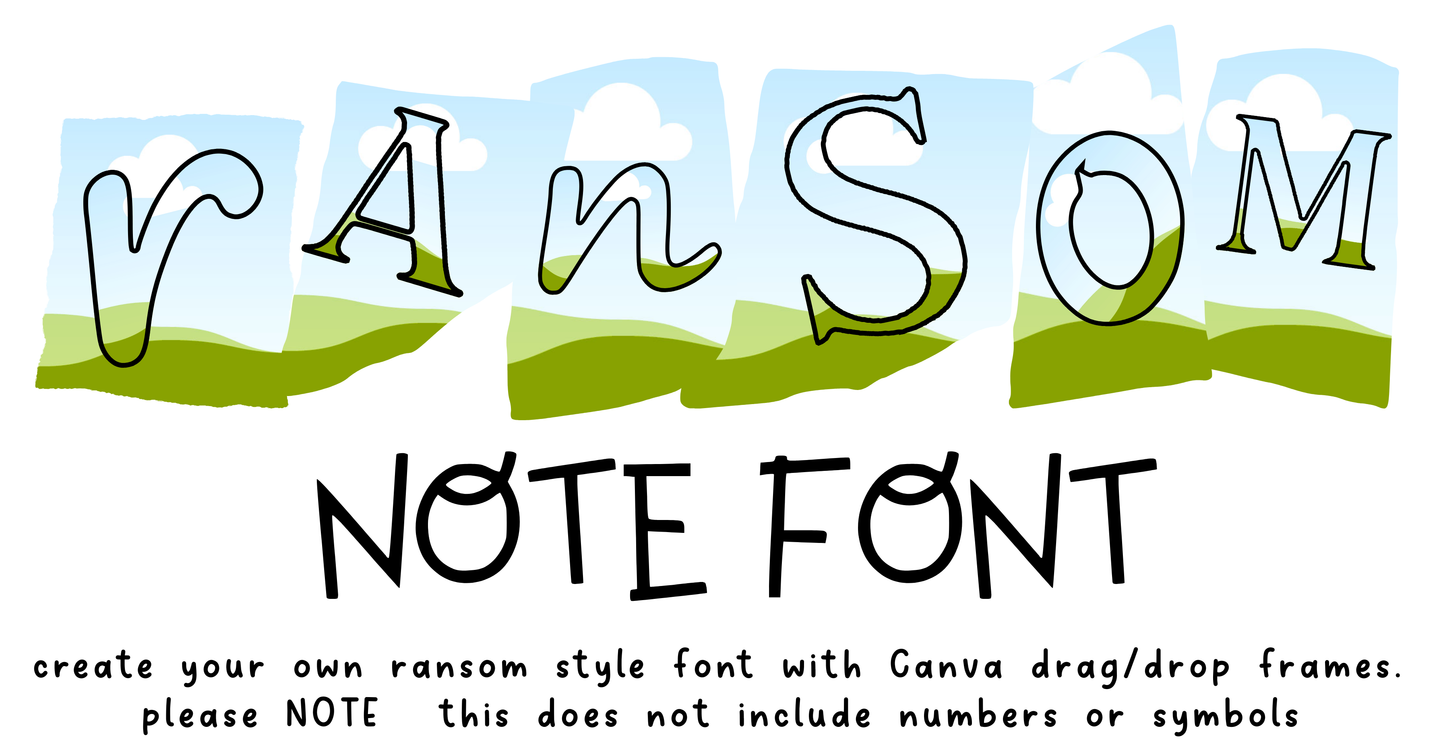
Ransom Note Font Canva Frames | Build Your Own Ransom Letter Style | Canva Drag & Drop Alphabet Template
Build Your Own Ransom Note Style Font – Canva Frames Template
This listing is for a Canva drag-and-drop frames template that allows you to create your own custom ransom note style lettering using photos, patterns, textures, or colors.
This is NOT a traditional font file — it is a Canva frames alphabet designed for easy customization.
✔️ Ransom note–style letter shapes
✔️ Drag & drop photos, patterns, or textures into each letter
✔️ Perfect for creating custom words, phrases, and designs
Alphabet letters A–Z
Individual ransom-style letter frames
❌ Does NOT include numbers or symbols